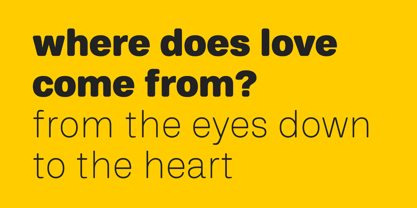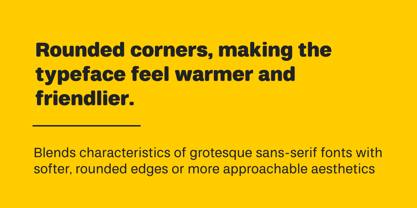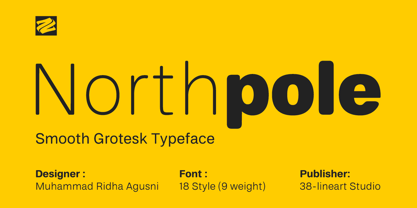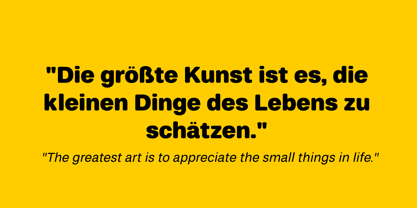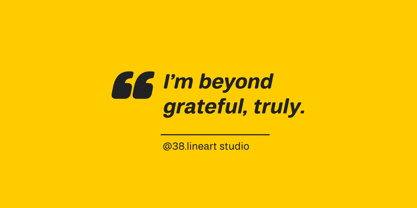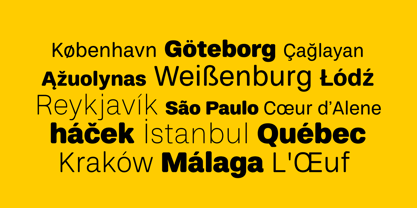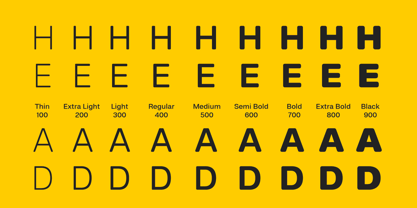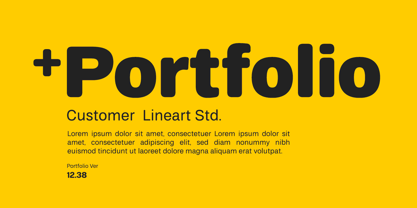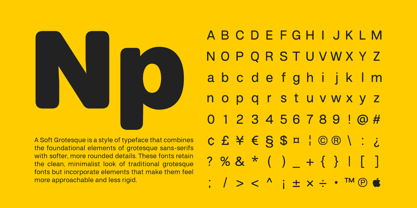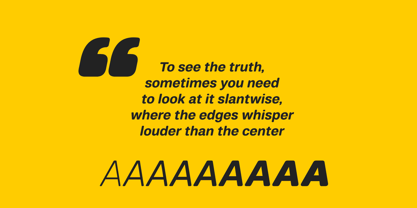
Northpole
por 38-lineart
La familia tipográfica Northpole fue diseñada por Muhammad Ridha Agusni y publicada por 38-lineart. Northpole contiene 19 estilos y opciones de paquete familiar. Más información sobre esta familia
Northpole is a smooth grotesque typeface that blends the structured characteristics of classic grotesque sans-serifs with a softer, more approachable aesthetic. Designed with rounded corners, it exudes warmth and friendliness, making it ideal for designs that require both modernity and a welcoming touch. With 18 styles spanning 9 weights, Northpole is a versatile choice, whether you're crafting bold headlines or creating clean, readable body text. Its carefully crafted details and minimalist design ensure it fits a wide range of applications, from branding and packaging to digital interfaces. This typeface invites you to explore the balance between structure and softness, delivering a design experience that's both professional and approachable.
Diseñadores: Muhammad Ridha Agusni
Fundición: 38-lineart